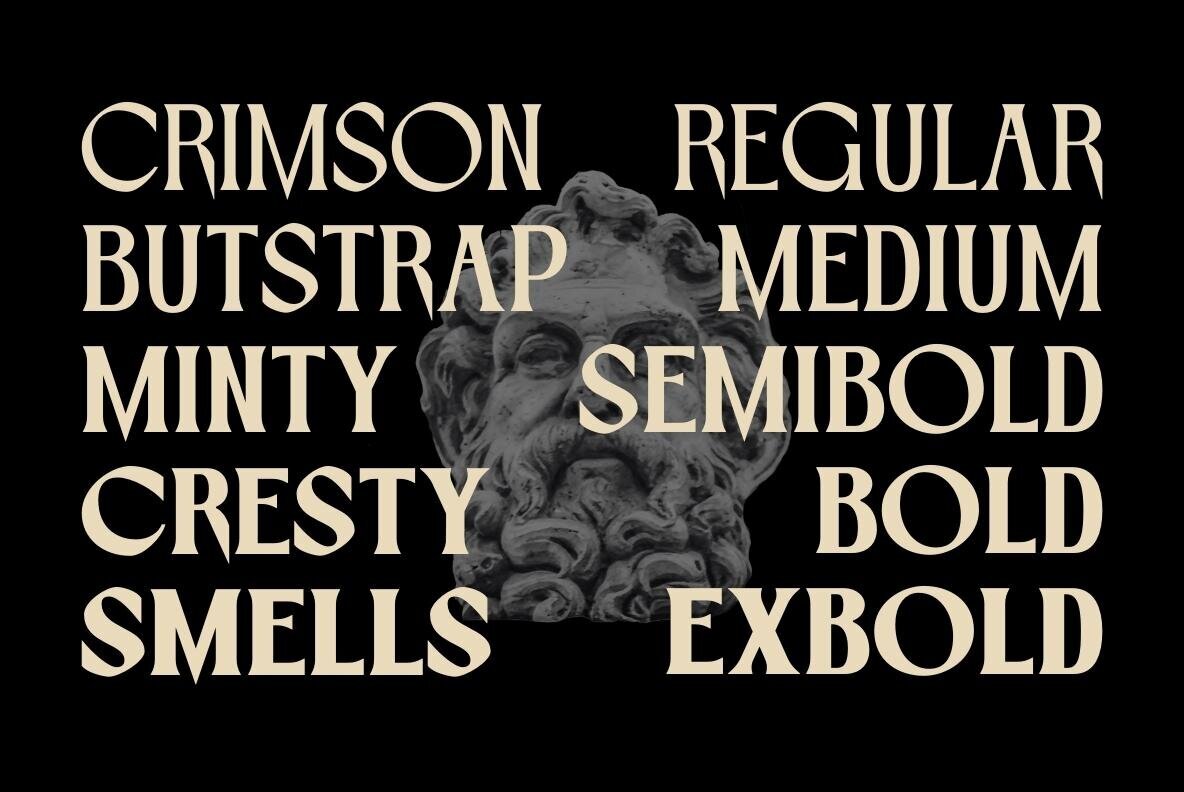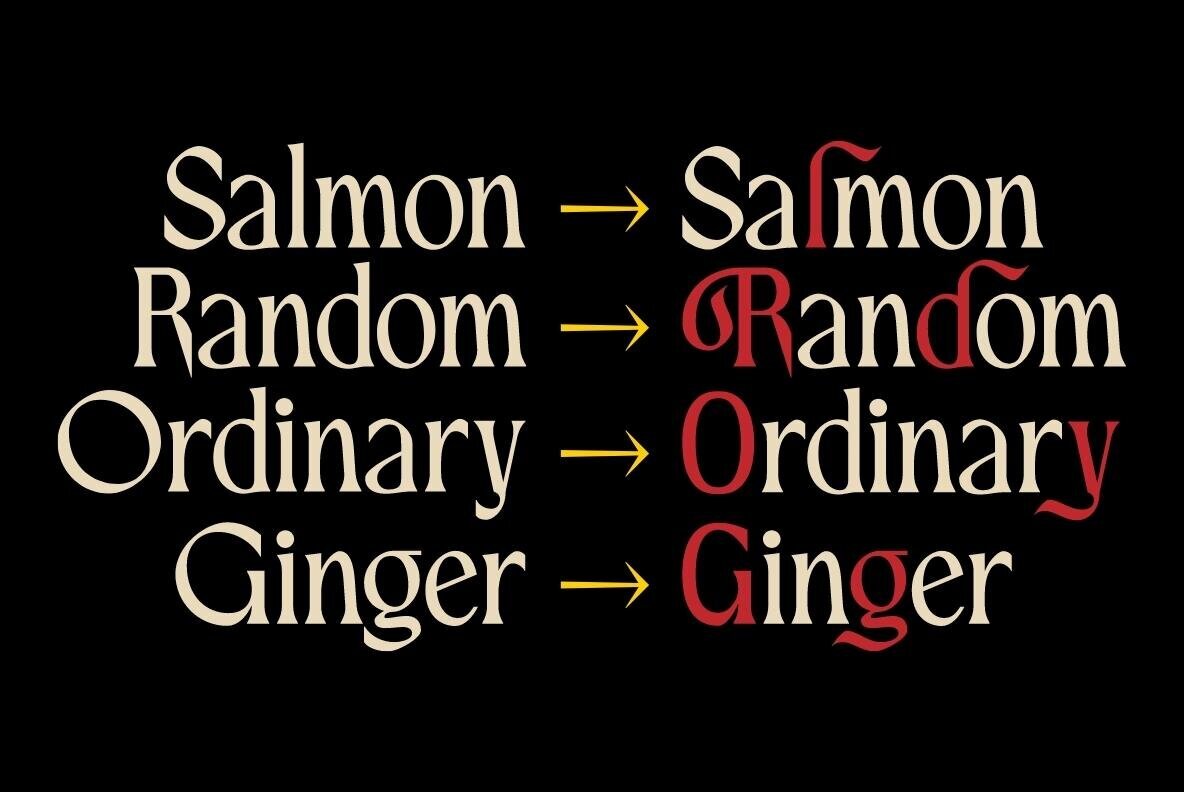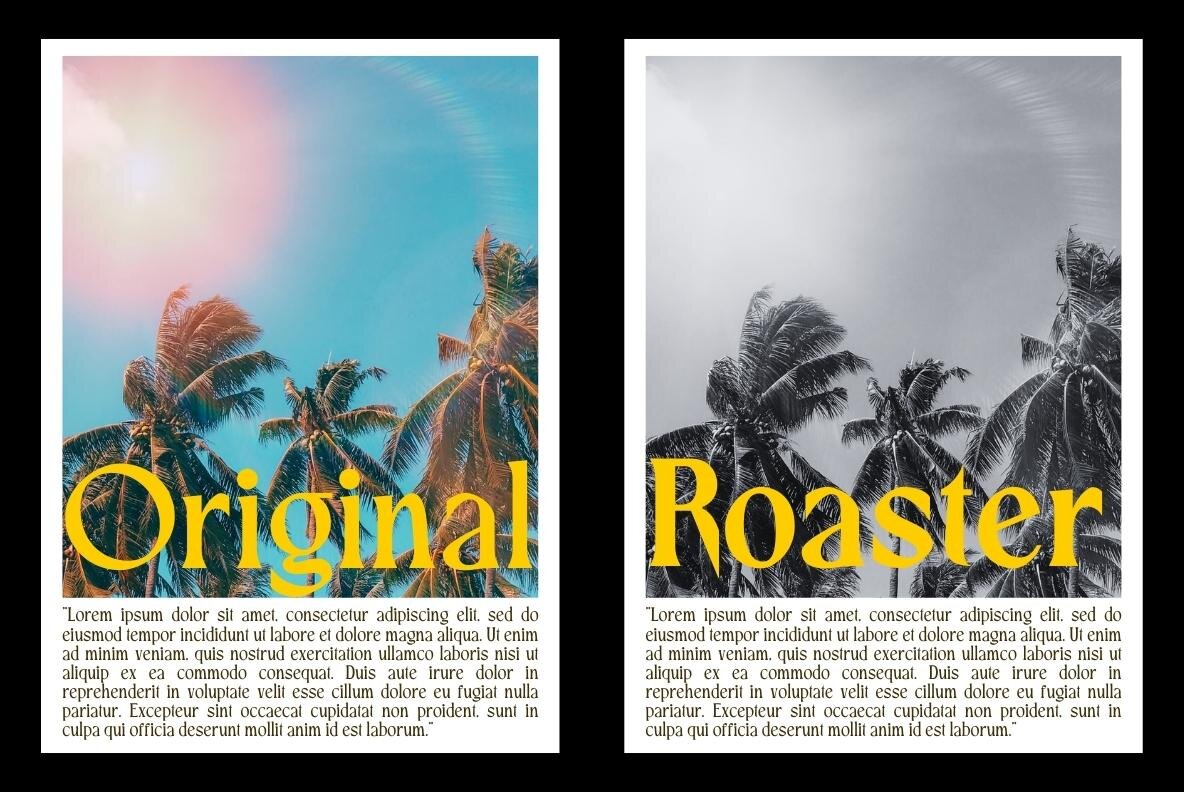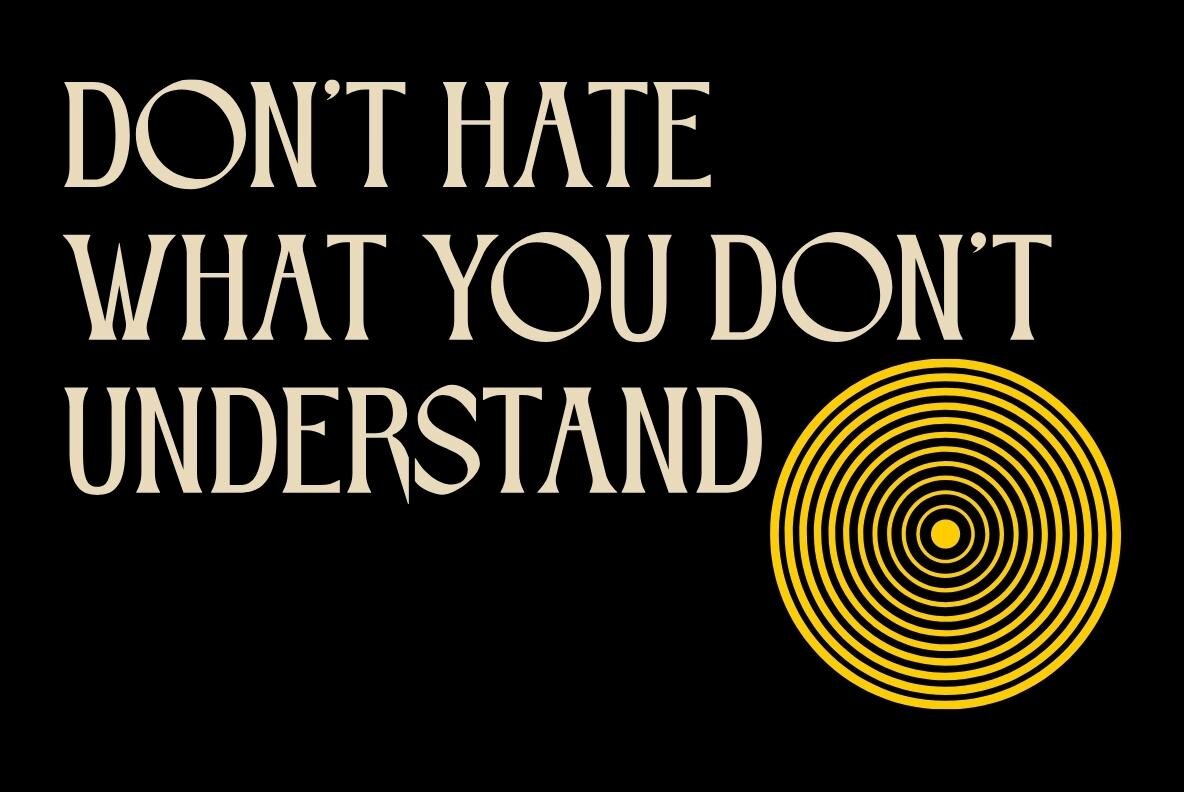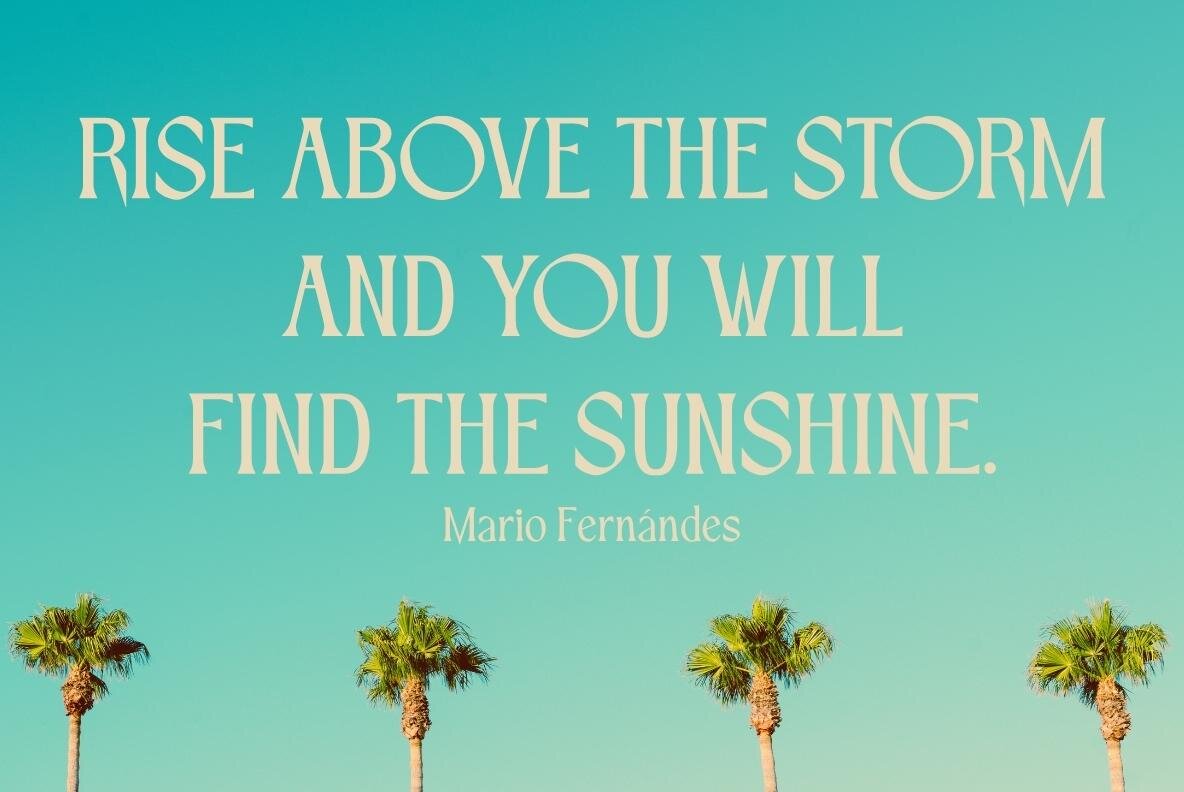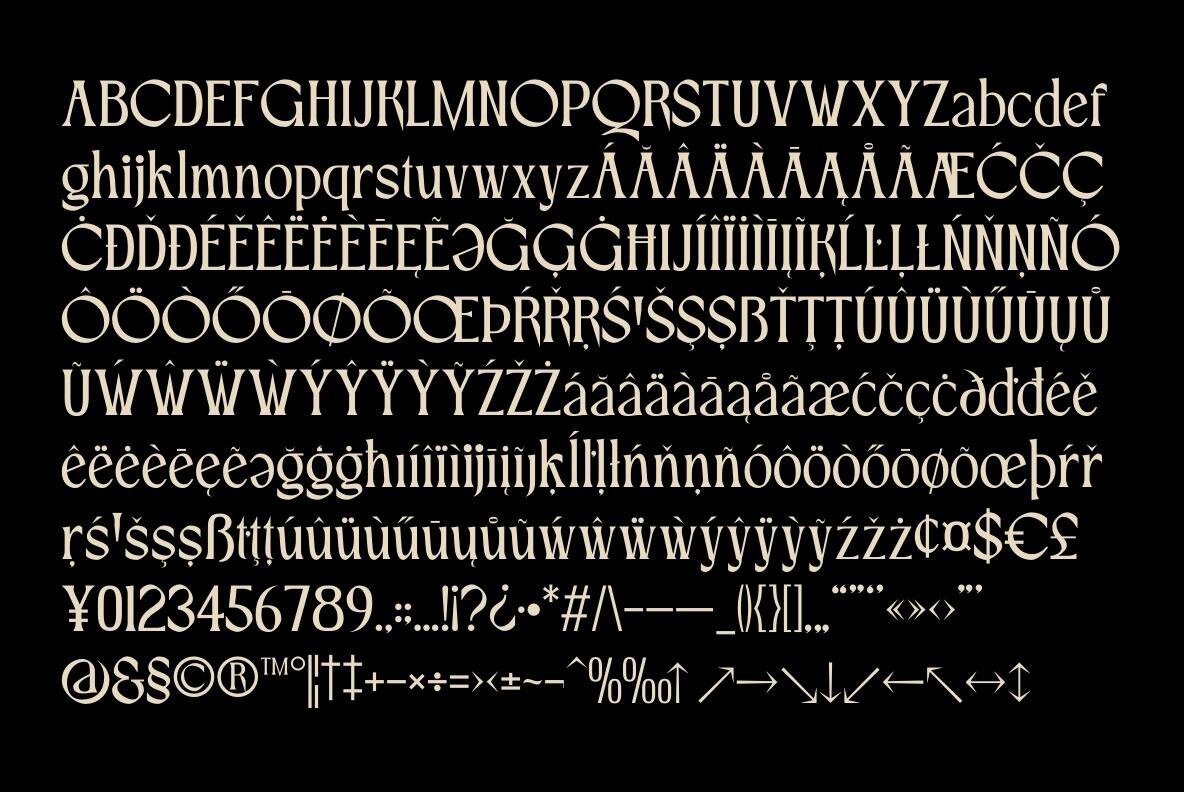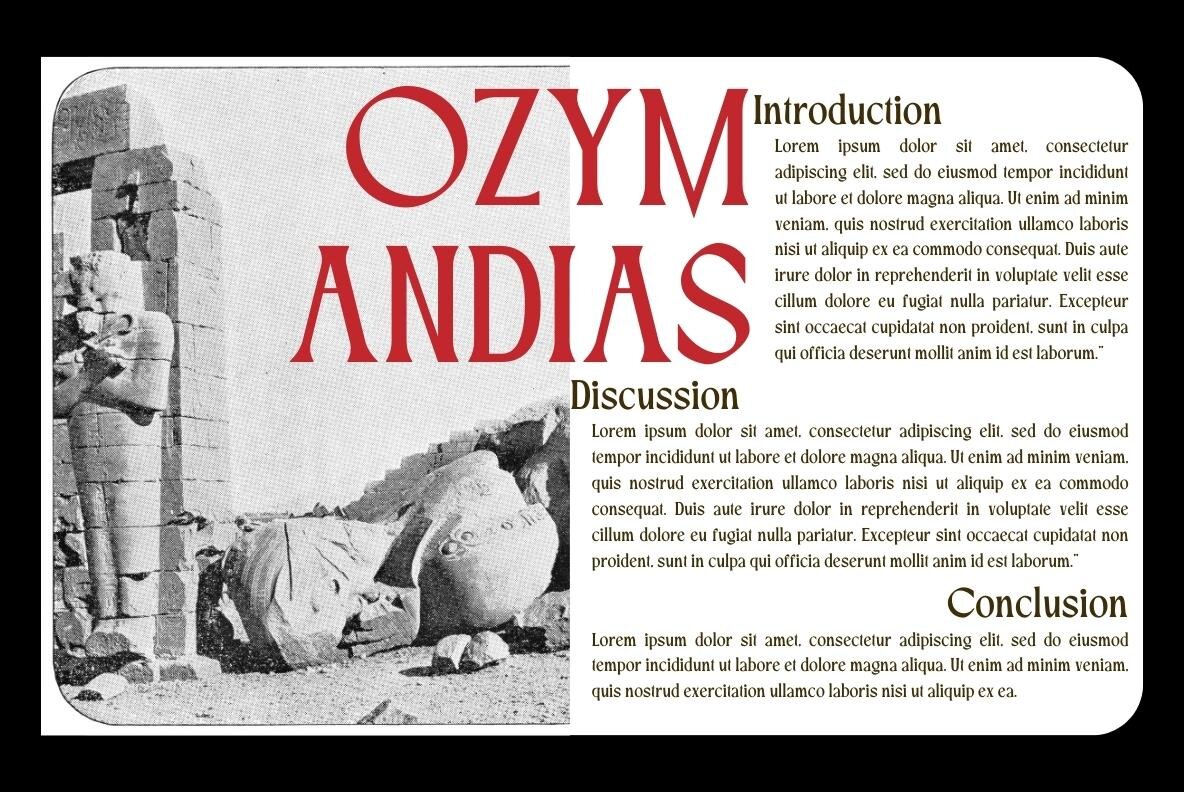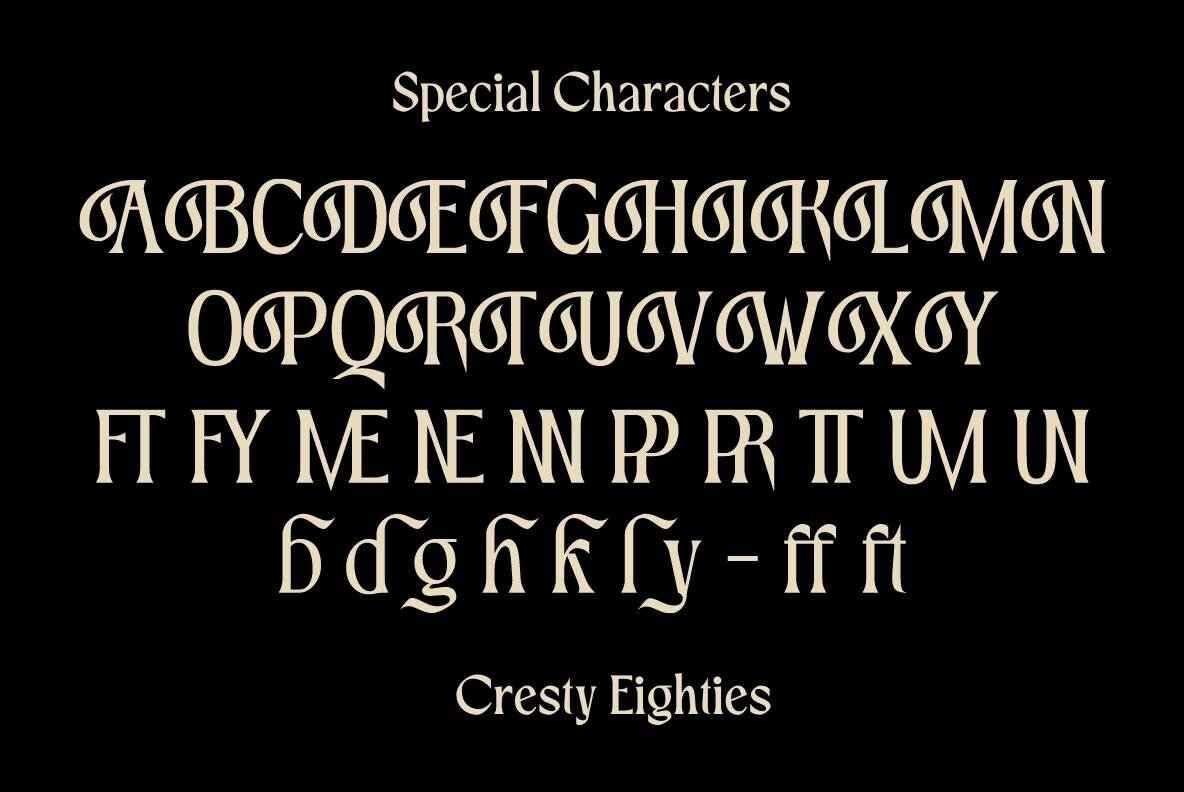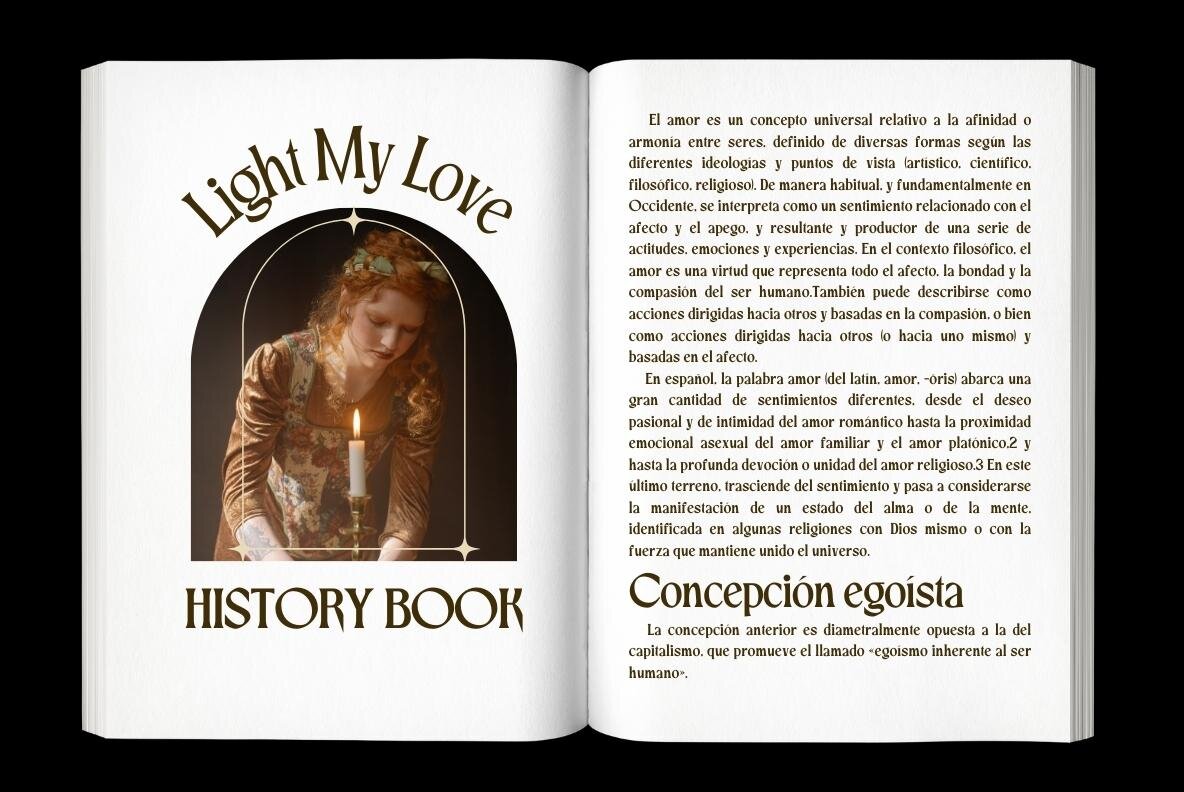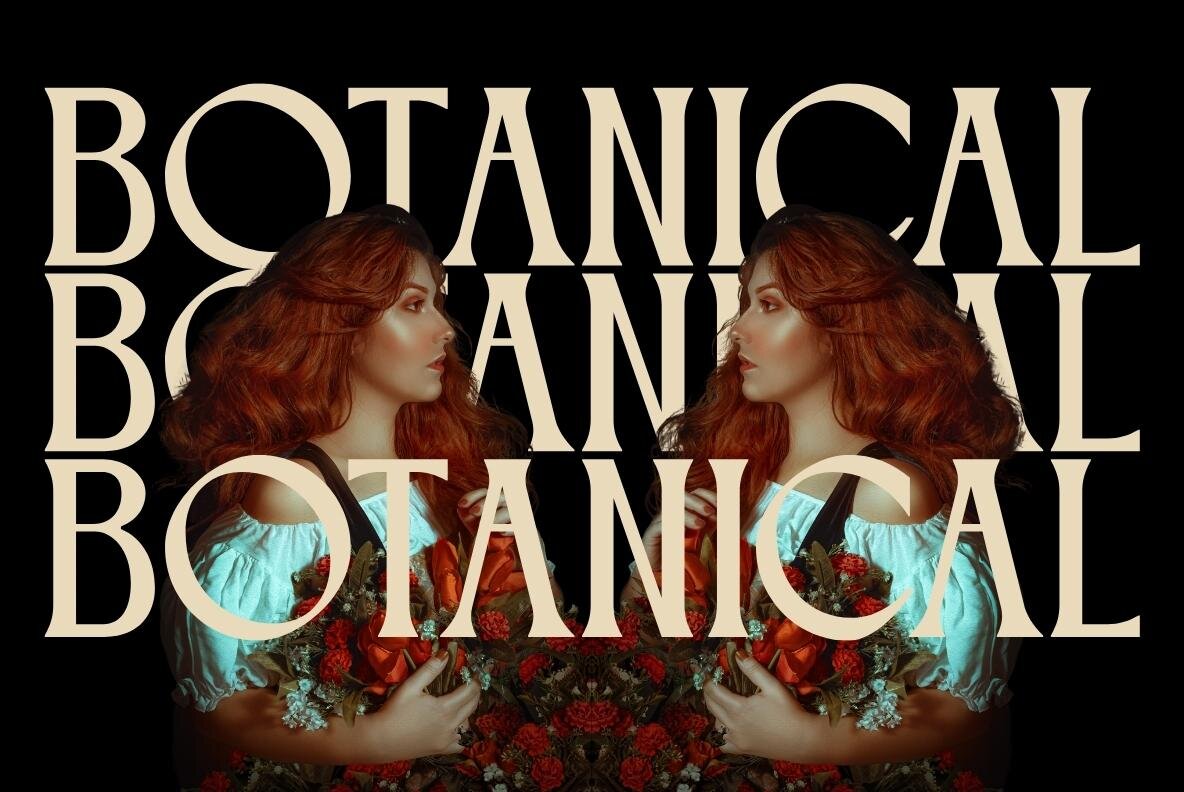
Cresty Eighties Font
Cresty Eighties by Holyline Design is a retro-inspired serif font family, blending the nostalgia of the 80s with contemporary design elements. Ideal for a variety of creative projects, this typeface draws from classic magazine styles and handcrafted lettering of the late 20th century. Cresty Eighties is perfect for projects needing a fresh and playful touch. Its versatile style pairs well with other fonts, offering creative flexibility. Enjoy experimenting with the various styles of Cresty Eighties for a satisfying design experience.Cresty Eighties: Retro Condensed Serif with a Modern Flair
Features and Styles